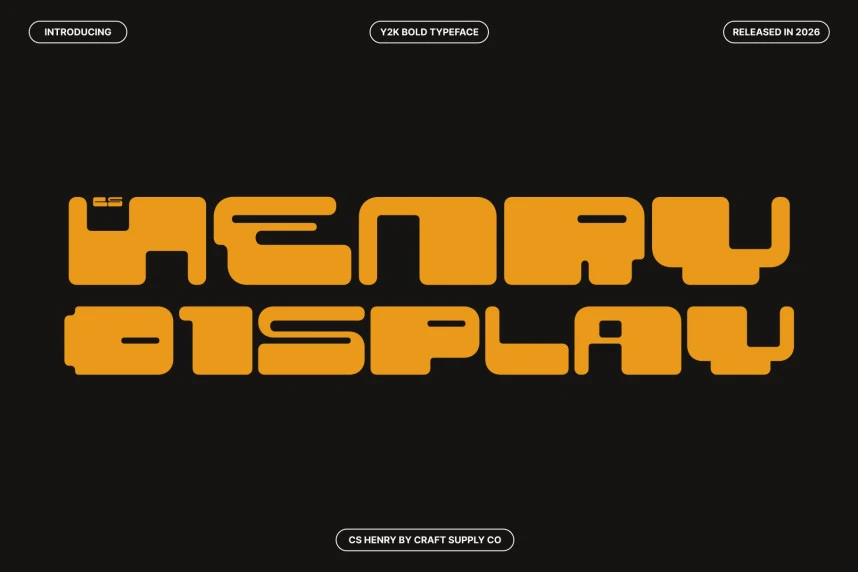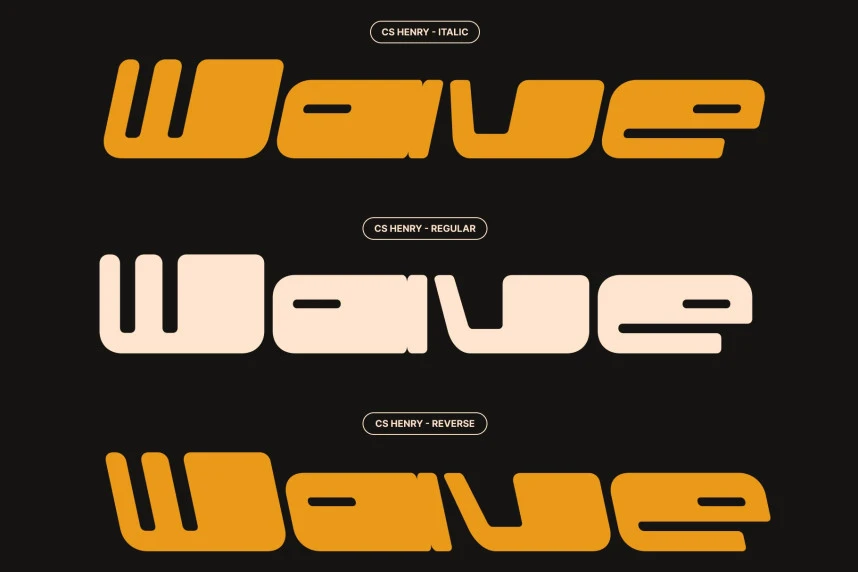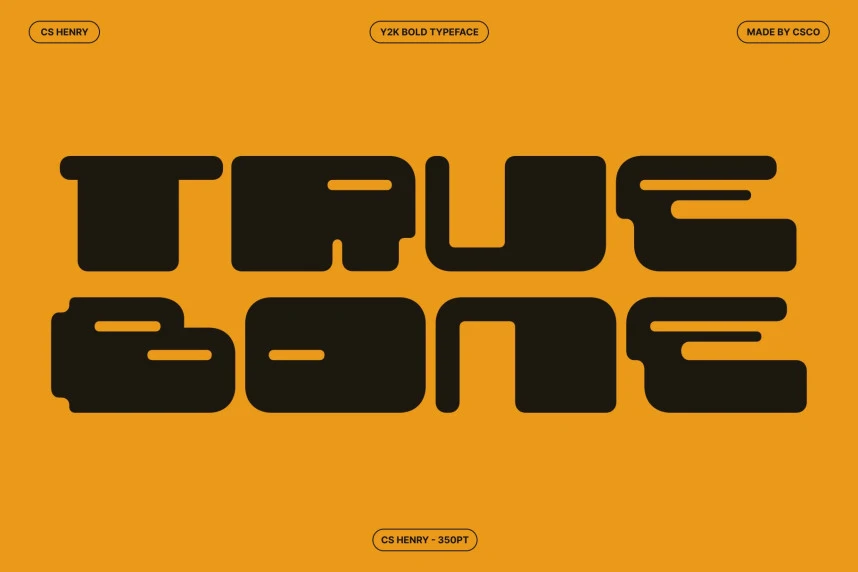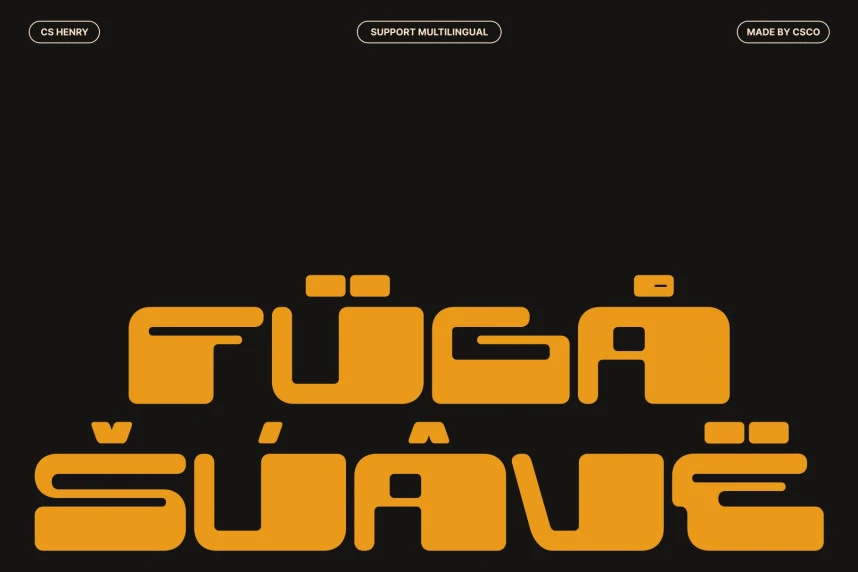
CS Henry Font
CS Henry Font – Y2K Display Font with Futuristic Energy Y2K Display Font with Bold Visual Impact This is a Y2K-inspired display font that captures the